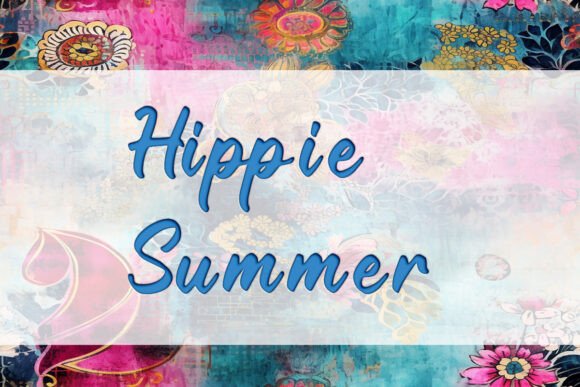
Hippie Summer Script: The Ultimate Breezy Typeface
There is a specific kind of energy that comes with the perfect summer day—carefree, warm, and undeniably stylish. Capturing that feeling in a design project can be tricky, but the right typography acts as the bridge between a flat graphic and an emotional experience. Hippie Summer Script is a premium font designed to do exactly that. It isn’t just a collection of letters; it is a vibe. As a modern display typeface, it brings a handwritten, organic quality to your work that feels both nostalgic and fresh. If you have been searching for a creative font that feels human and approachable, this is the tool you need in your design assets library.
The Anatomy of a Carefree Vibe
When you look at Hippie Summer Script, the first thing you notice is the movement. Unlike rigid sans serif fonts or traditional serif fonts, this script font flows with a natural, hand-lettered rhythm. The strokes mimic the pressure of a real pen or brush, featuring soft edges and a slight bounce in the baseline. This imperfection is intentional; it creates a sense of authenticity that resonates with modern audiences who are tired of sterile, corporate aesthetics.
The personality of this typeface is undeniably bold yet relaxed. It commands attention without shouting. The characters feature beautiful ligatures and swashes that allow letters to connect seamlessly, creating a sophisticated look often found in high-end logo design and packaging. However, it retains a playful edge that makes it perfect for casual branding. It balances the gap between a sophisticated script font and a friendly handwritten font, making it incredibly versatile for a wide range of projects.
Where This Font Shines: Practical Applications
Understanding where to use a display font like Hippie Summer Script is key to maximizing its impact. Because it is a decorative typeface, it excels in environments where atmosphere and emotion take precedence over dense paragraphs of text. Here is how different creators can leverage this font:
Branding and Logo Design
For entrepreneurs and small business owners, brand identity is everything. Hippie Summer Script is an ideal choice for brands that want to project warmth, creativity, and approachability. Think about businesses in the wellness, beauty, fashion, or lifestyle sectors. A bakery, a bohemian clothing line, or a handmade jewelry shop can use this font to create a logo that feels personal and bespoke. When paired with a clean sans serif font for subheadings, it establishes a strong visual hierarchy that guides the customer’s eye exactly where you want it.
Digital Presence and Social Media
In the fast-paced world of web design and social media graphics, you have only a split second to grab attention. The distinct style of Hippie Summer Script makes it a standout choice for Instagram quotes, Pinterest pins, and website hero sections. It adds an instant aesthetic upgrade to digital layouts. However, readability on screens is crucial. I recommend using this font for large headers or single-line callouts rather than body text. Its bold strokes render well at larger sizes, ensuring your message is clear even on mobile devices.
Print, Packaging, and Editorial Design
There is something magical about seeing a script font on physical media. In editorial design, such as magazine layouts or blog headers, Hippie Summer Script can break up the monotony of standard text blocks, adding a touch of style that feels effortless. It is also a powerhouse in packaging design. Imagine this font on a label for artisanal coffee or a summer candle; it immediately communicates the quality and care put into the product. For greeting cards and wedding invitations, the font’s romantic and flowing nature creates heart-warming designs that people love to receive.
Crafting and DIY Projects
The crafting community, particularly those using cutting machines like Cricut or Silhouette, will find this font to be a favorite. Its smooth vector paths make it easy to cut from vinyl, cardstock, and heat transfer vinyl (HTV). Whether you are creating custom t-shirts, vibrant stickers, or home decor signs, the font maintains its integrity at various sizes. It is robust enough for bold poster designs yet detailed enough for smaller accents on tote bags.
Strategic Typography: Readability and Pairing
As a designer or content creator, simply choosing a pretty font isn’t enough; you have to use it strategically. One of the most common questions regarding display fonts is about readability. While Hippie Summer Script is legible, it is best used for headlines, logos, and short phrases. Avoid setting entire paragraphs in any script font, as it strains the reader's eyes and disrupts the reading flow.
The real magic happens when you master font pairing. To make Hippie Summer Script work effectively, you need contrast. Because it is a flowing, organic script, it pairs beautifully with geometric sans serif fonts. A clean, minimalist sans serif acts as a "rest" for the eyes, allowing the script font to be the star of the show without overwhelming the design. For a vintage or retro look, you might pair it with a sturdy slab serif, but ensure the weights are balanced so the design doesn't feel too heavy.
Making the Right Choice for Your Project
Ultimately, typography is about communication. Hippie Summer Script communicates joy, creativity, and a relaxed confidence. It is a tool that allows you to inject personality into your work, whether you are designing a complex branding package or a simple social media post. By using it thoughtfully and pairing it correctly, you elevate your work from a simple layout to a memorable visual experience.